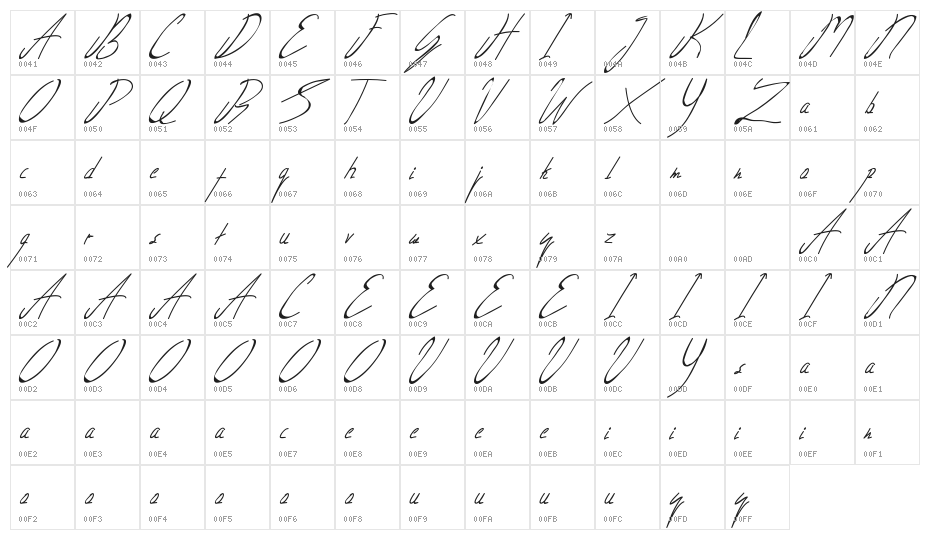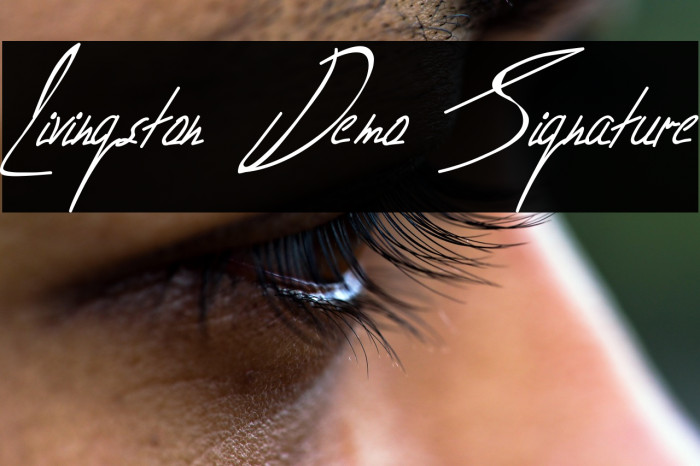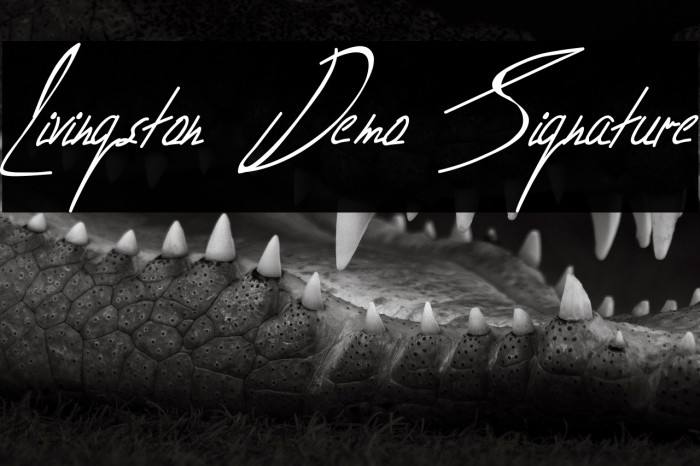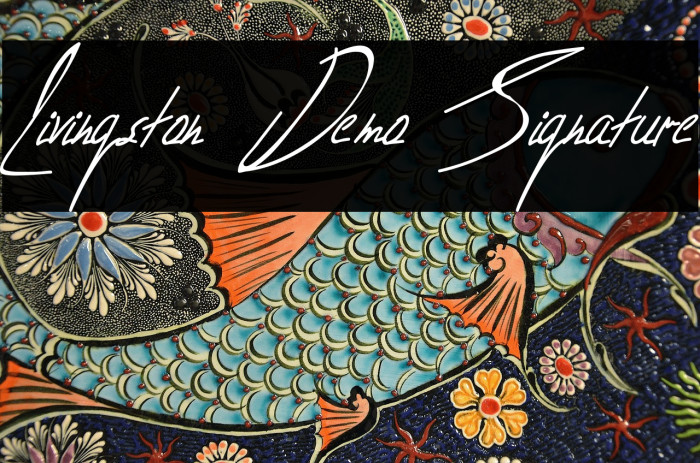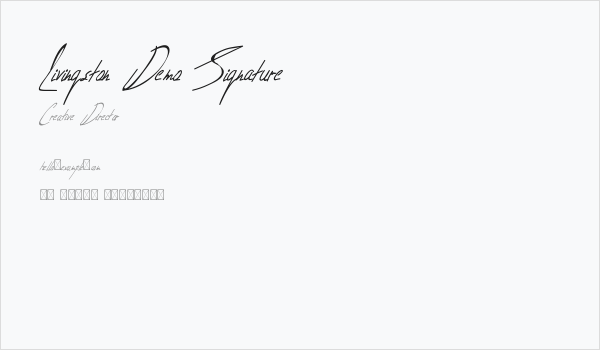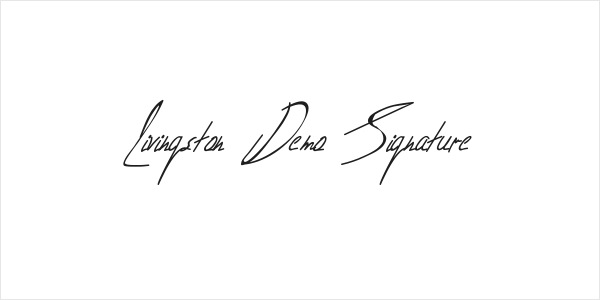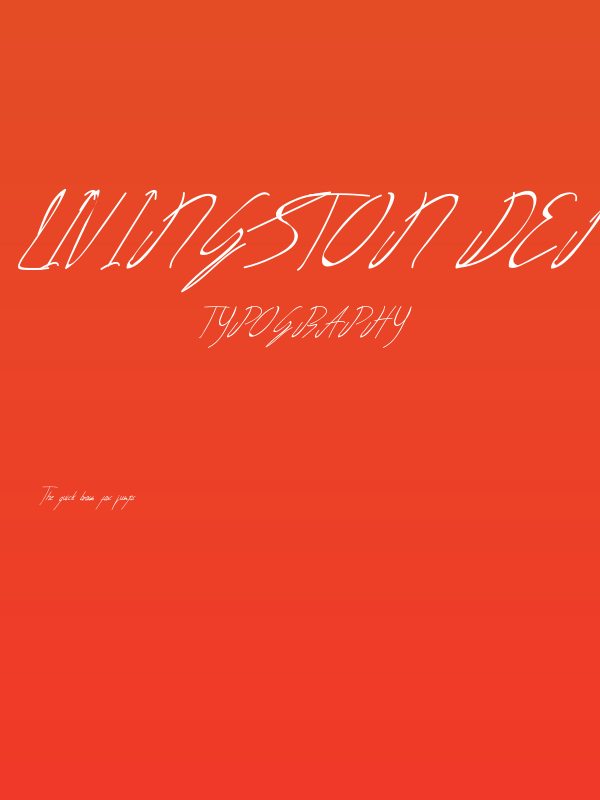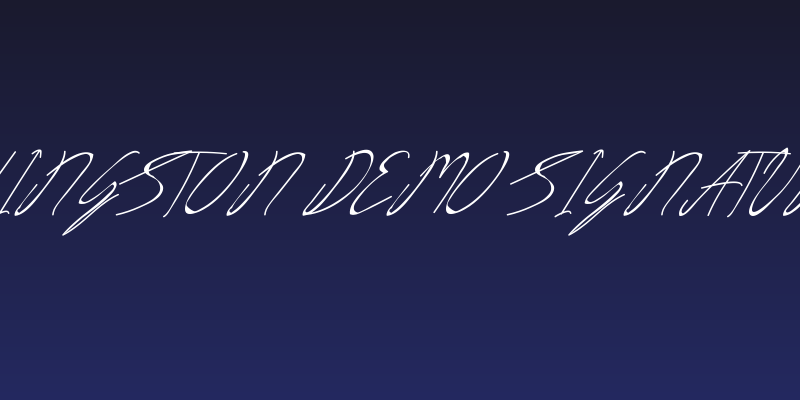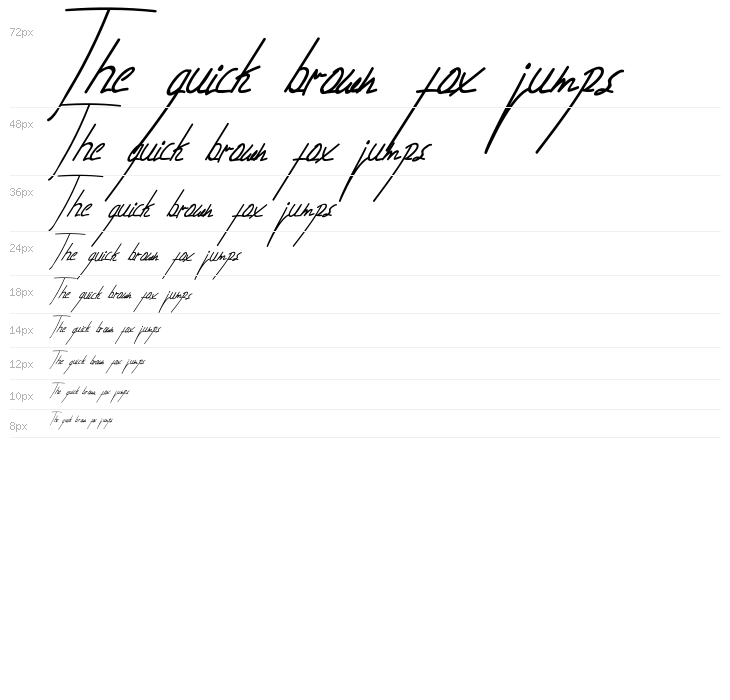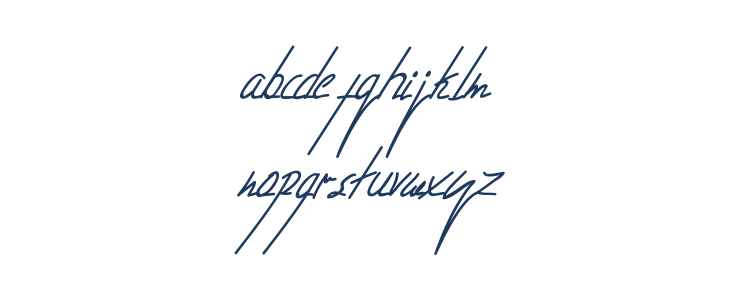
Livingston Demo Signature Font
Livingston Demo Signature Description
This font exudes a sophisticated and elegant handwritten style, characterized by its fluid and continuous strokes. The letters are gracefully connected, creating a seamless flow that mimics natural handwriting. The uppercase letters are slightly more pronounced, with a subtle slant that adds a dynamic feel. The lowercase letters maintain a consistent rhythm, enhancing readability while preserving the artistic flair. The overall appearance is both stylish and personal, making it ideal for projects that require a touch of class and individuality. The font's unique character is further emphasized by its delicate curves and loops, which add a sense of movement and life to the text.